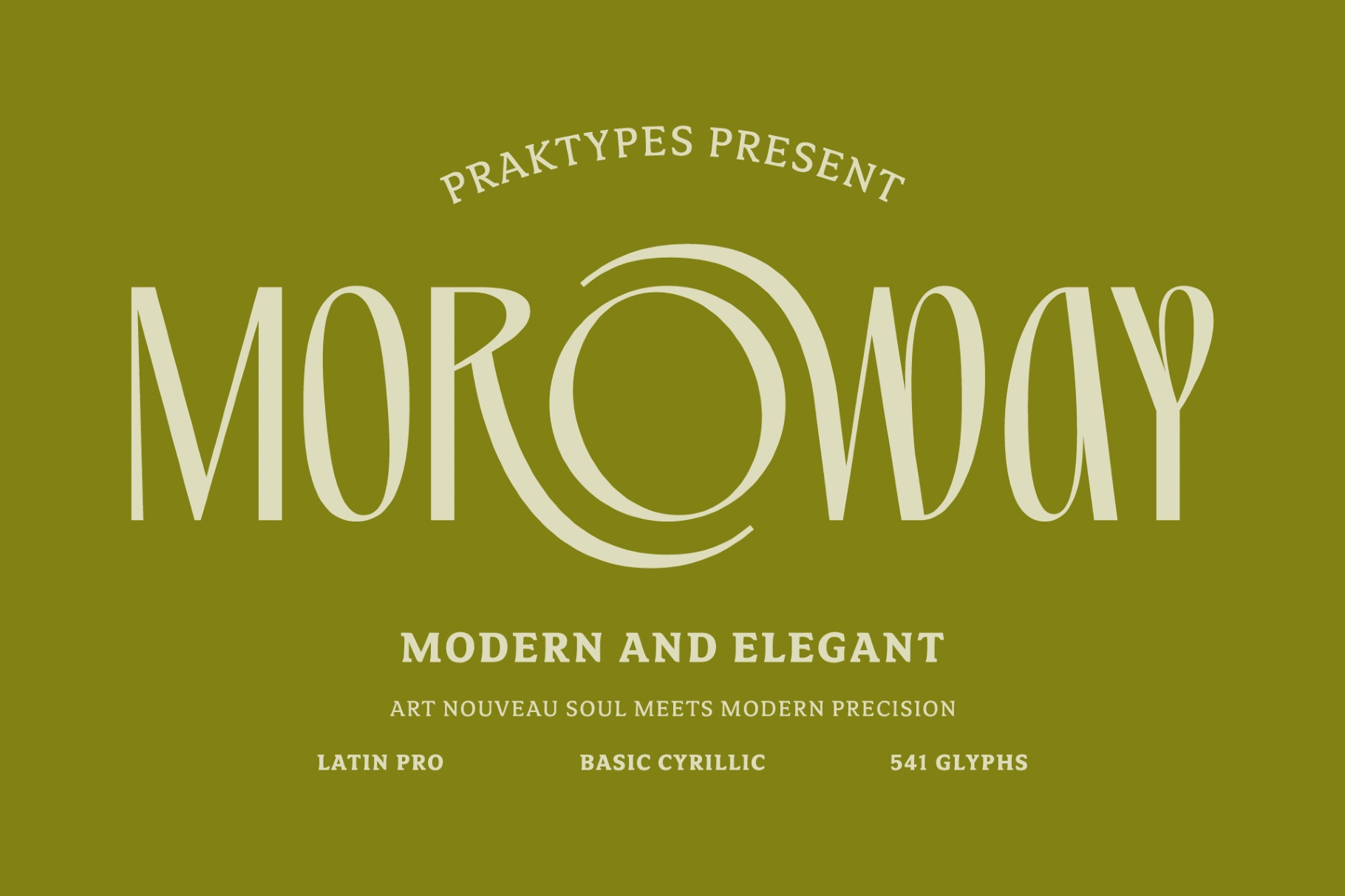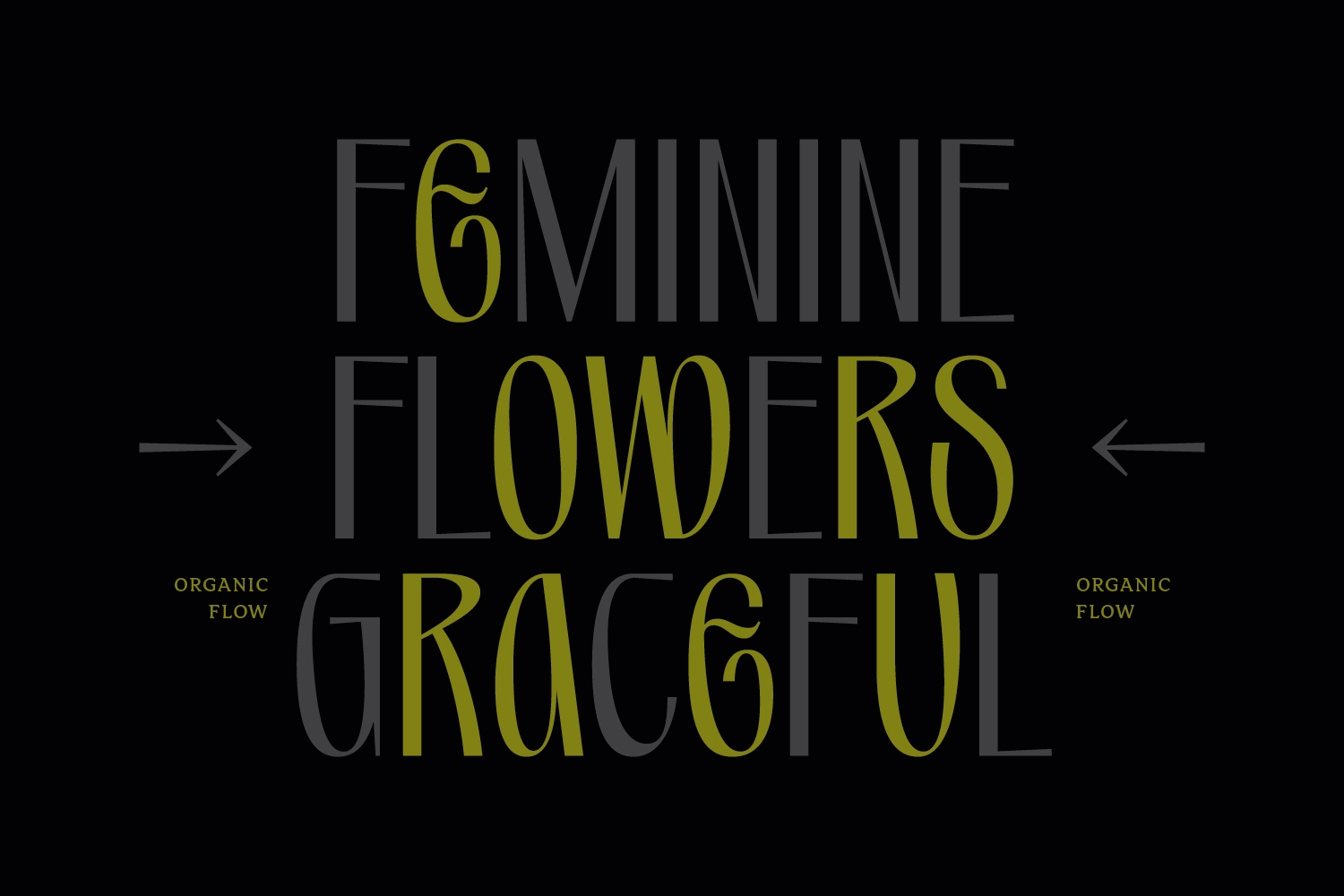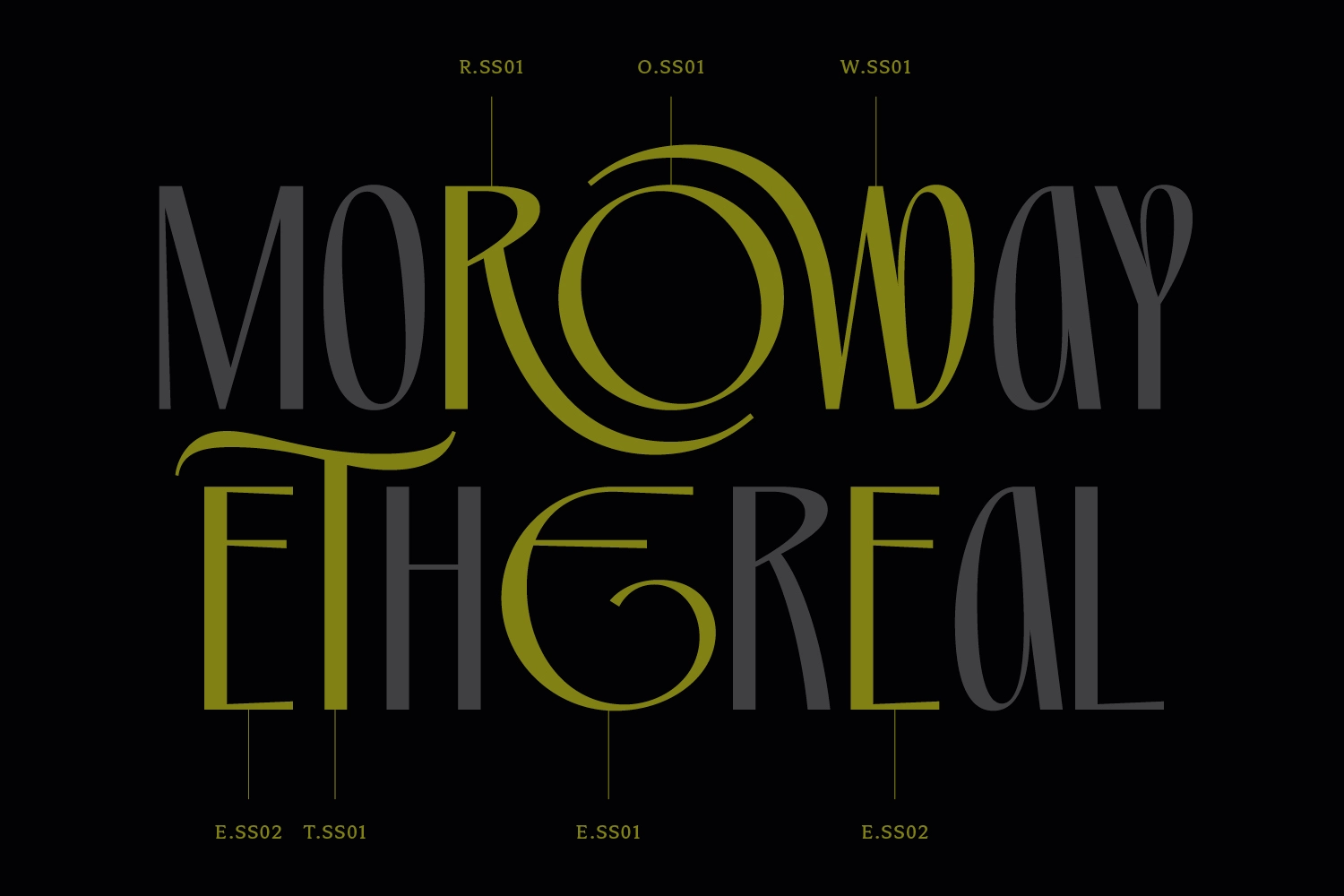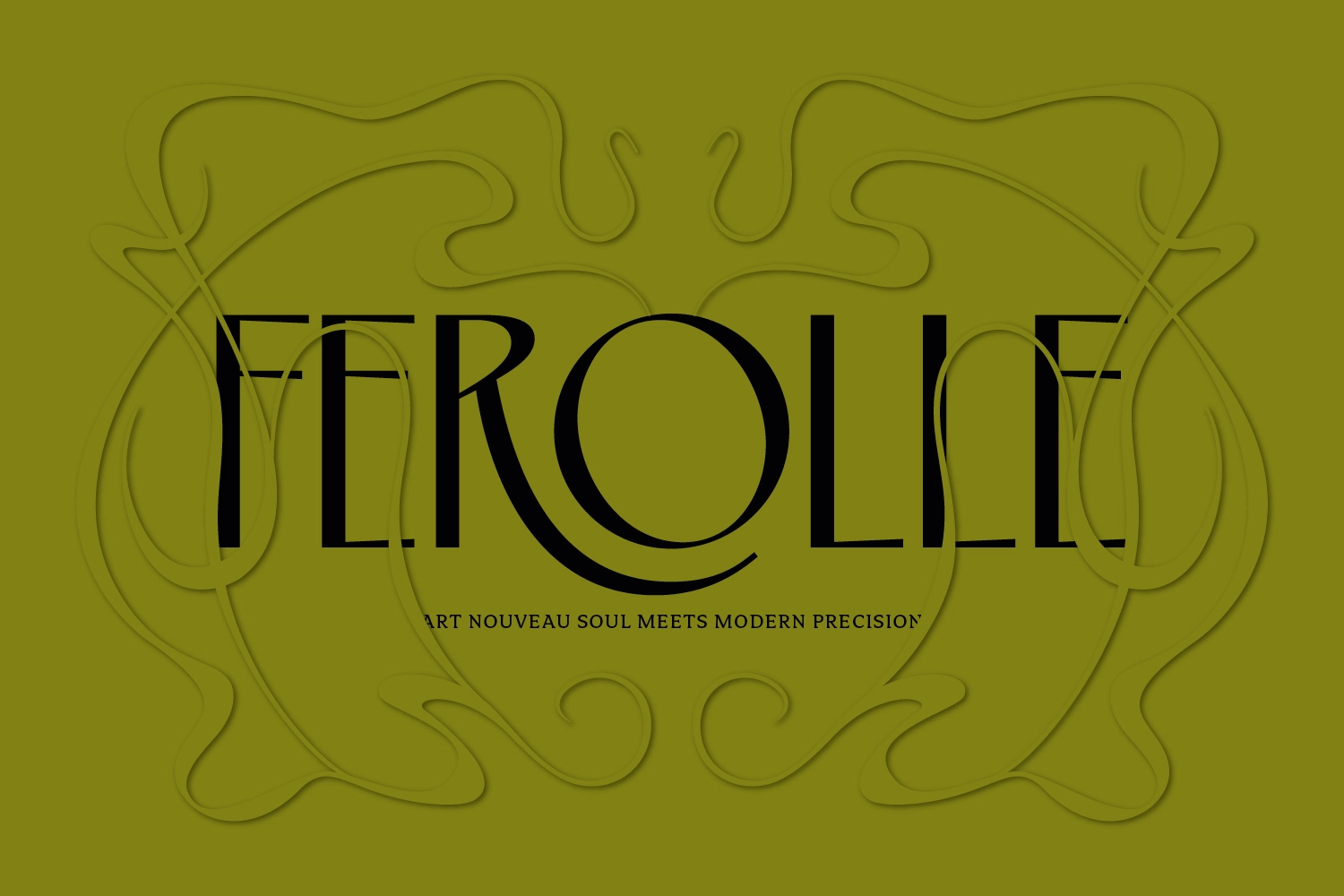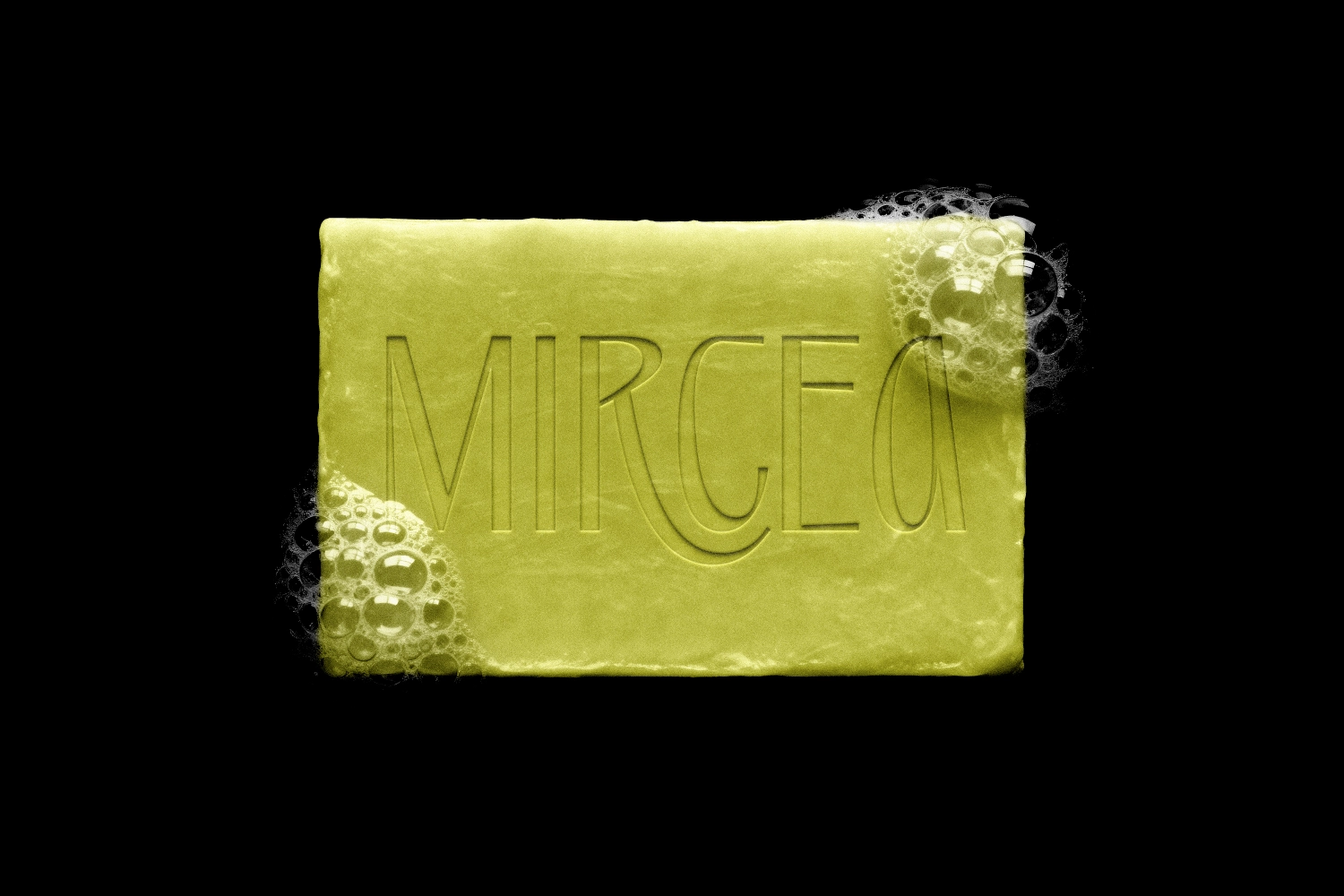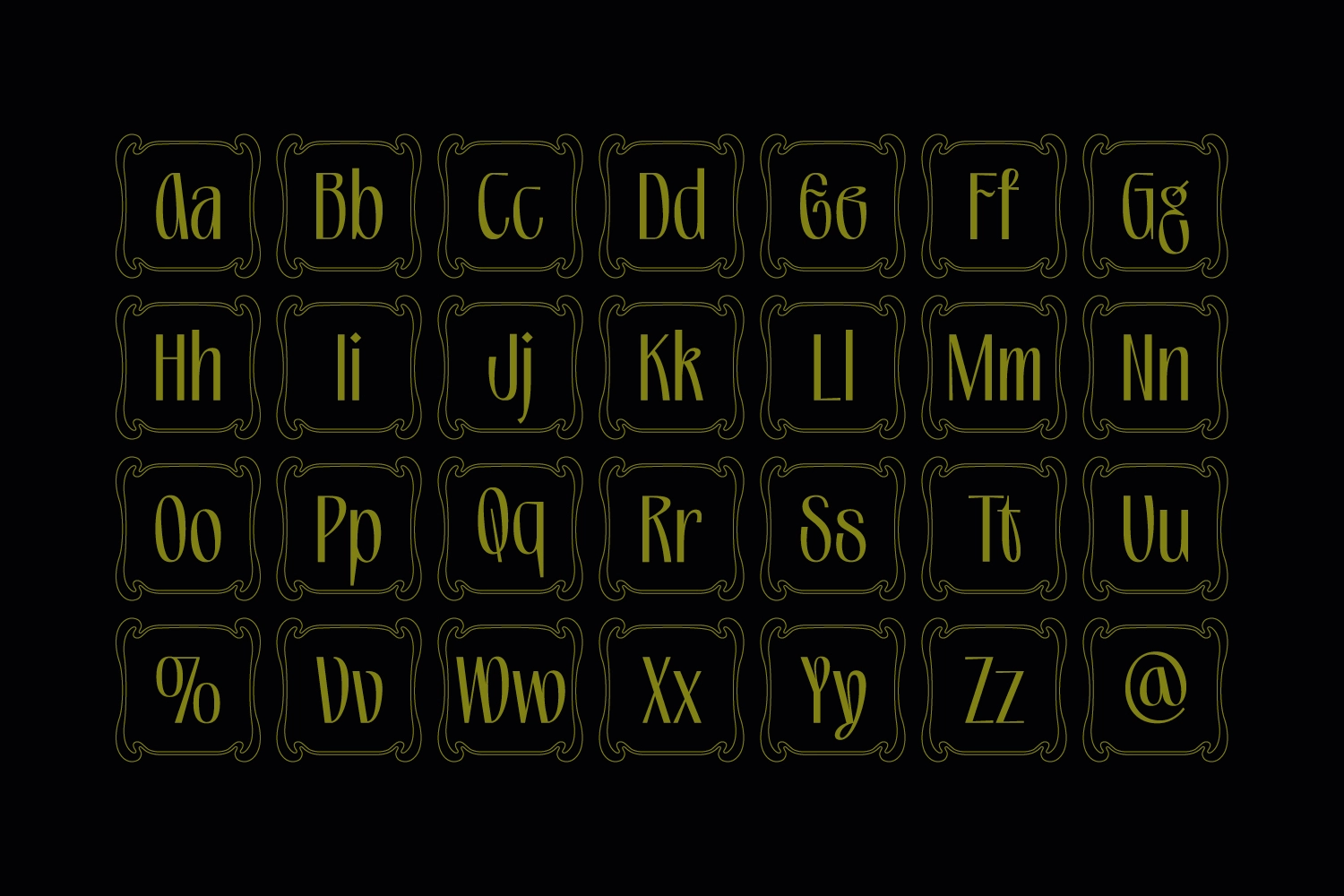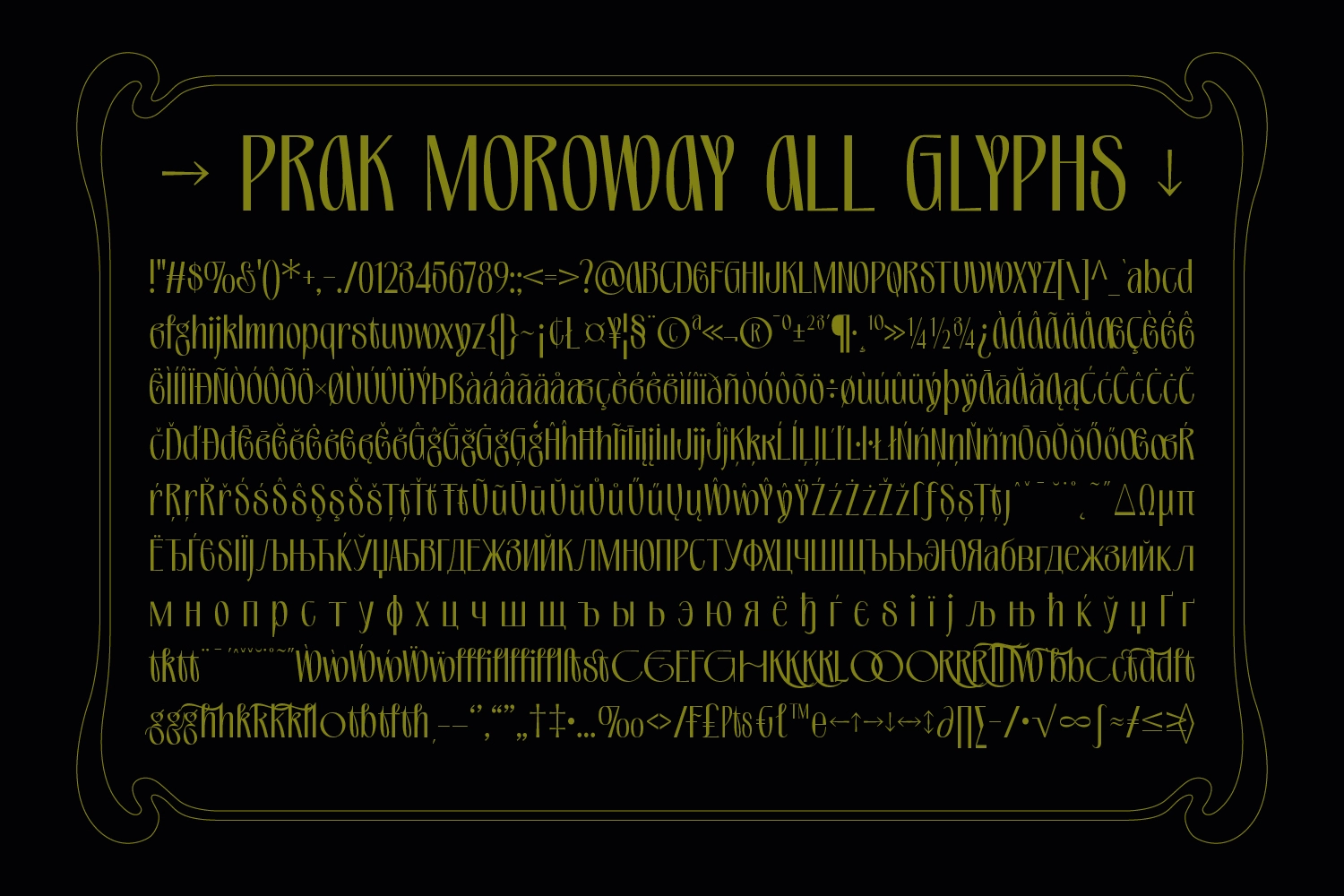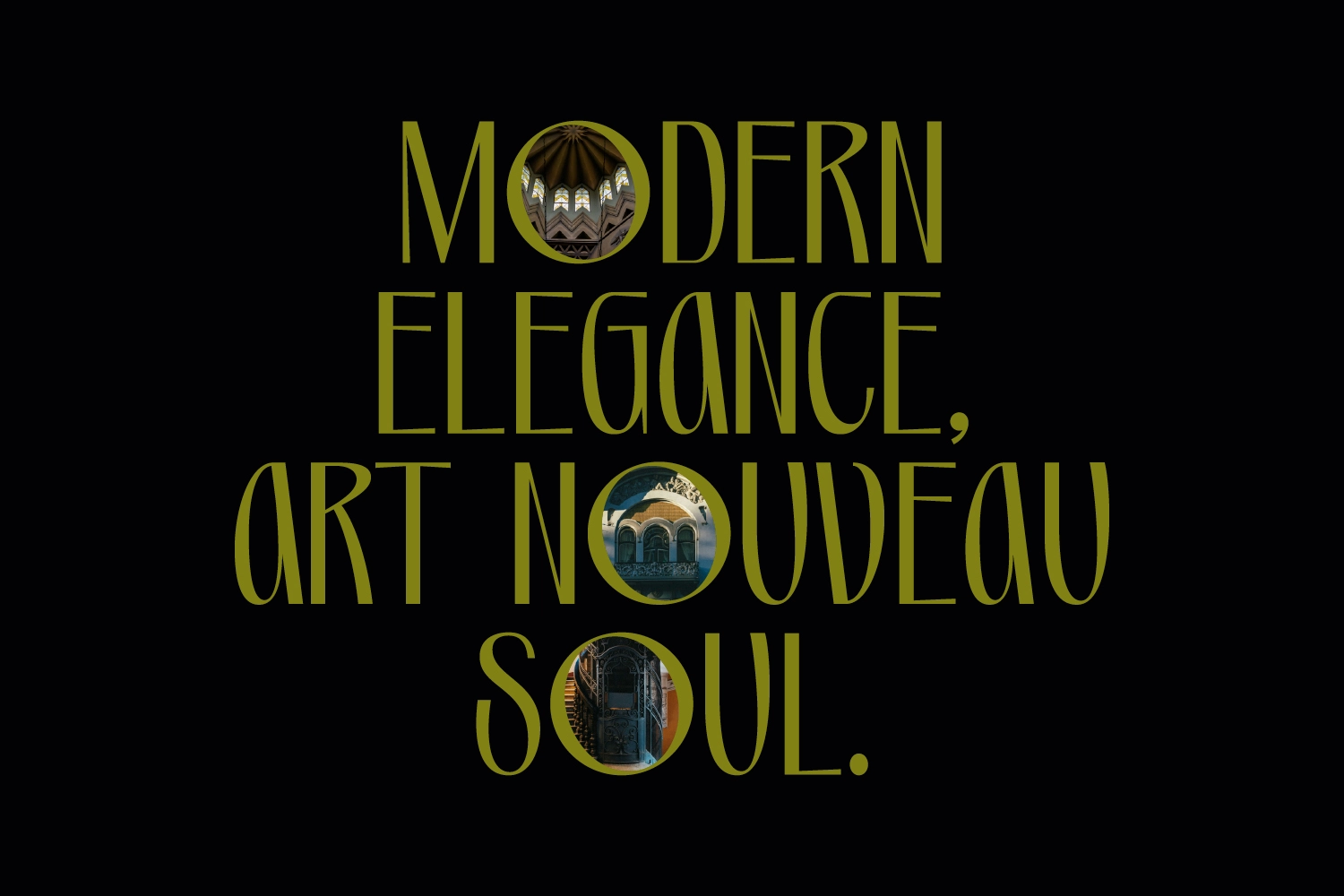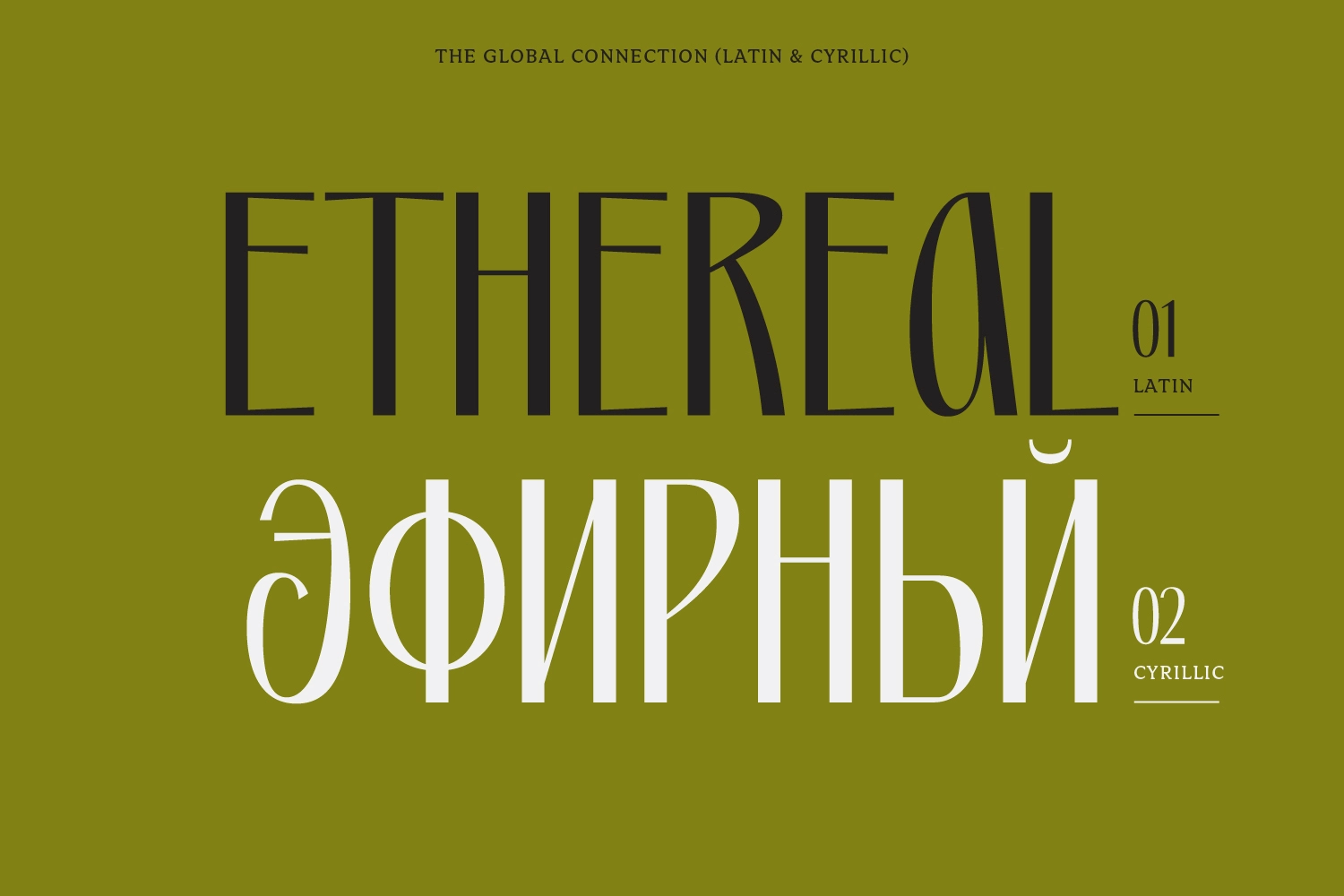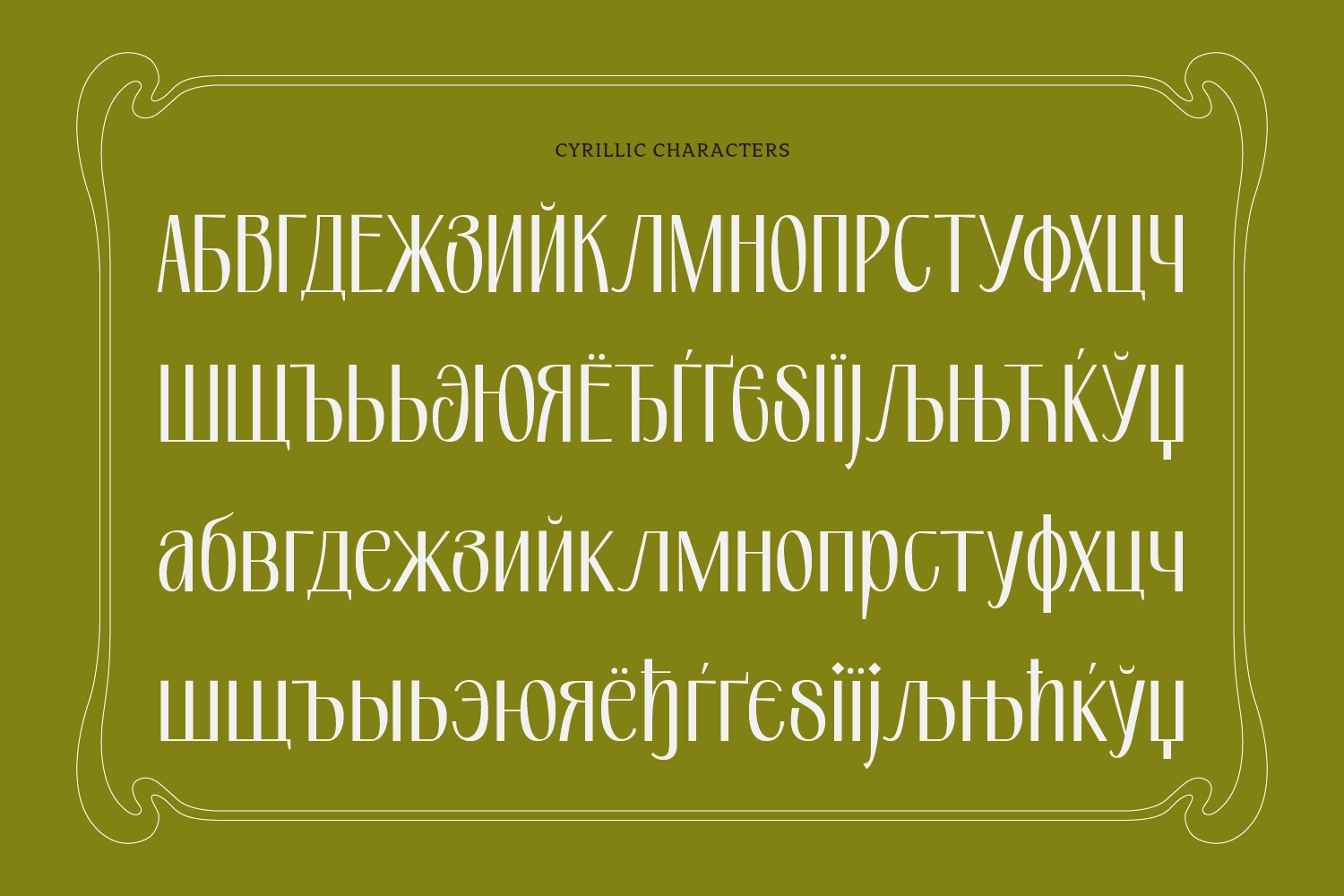
PRAK Moroway - Feminine Serif Font
Prak Moroway
This decorative serif font has tall, narrow proportions with Art Nouveau curves and sharp contrast. Its elongated letterforms, ornamental ligatures, and soft organic terminals give headlines a refined, crafted character with a slightly mysterious edge.
Prak Moroway is well suited for boutique branding, book covers, artisanal labels, perfume packaging, editorial titles, gallery posters, floral branding, wedding stationery, café menus, candle packaging, jewelry identities, and heritage-style product design.
- Numerals & Punctuation
- Discretionary Ligatures
- Latin Pro & Basic Cyrillic
- 541 Glyphs
- Accented characters
- Extensive language support